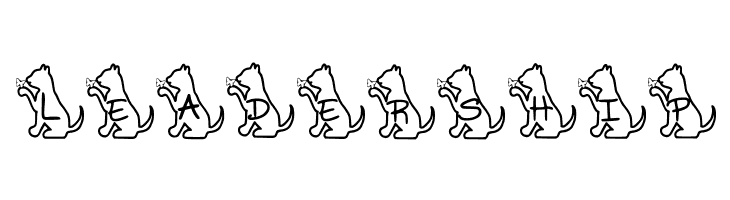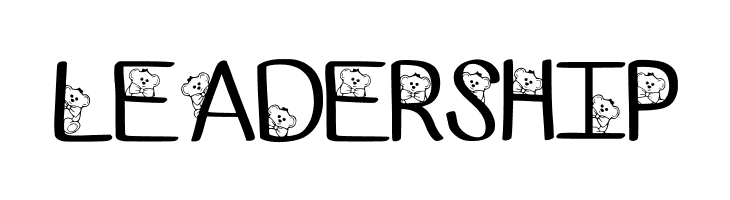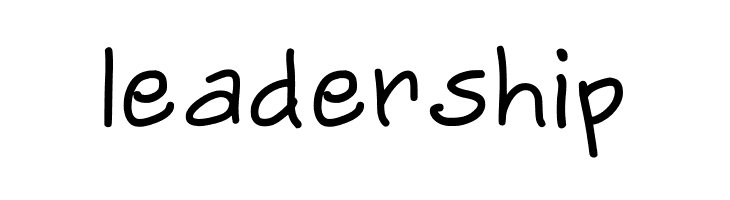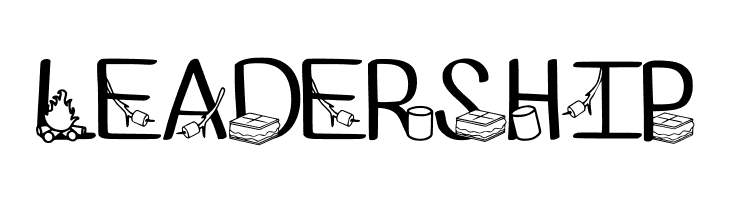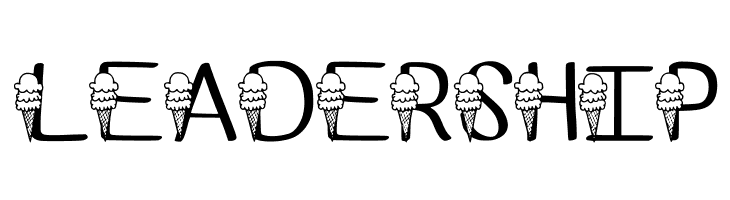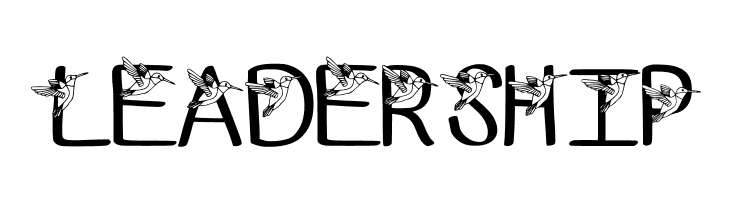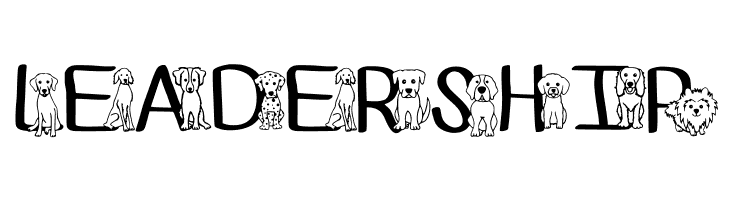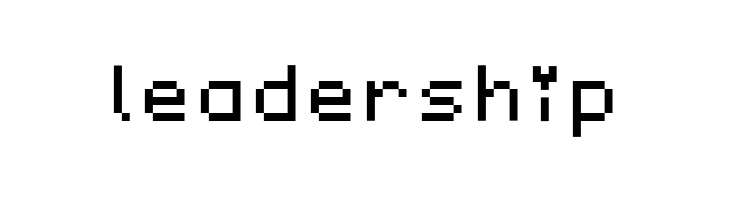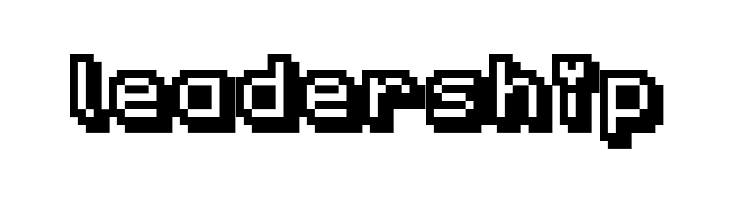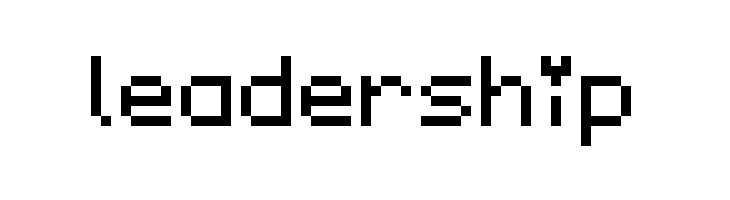
A bold, futuristic font with geometric and dynamic design elements.
A decorative, fictional script with geometric and symbolic characters.
A bold, decorative font with snowflake patterns, perfect for festive designs.
A flowing, cursive script font with elegant, interconnected characters.
A whimsical font with characters inside cat outlines, perfect for playful designs.
A playful font with teddy bear illustrations, perfect for children's themes.
A playful, casual handwritten font with smooth, flowing lines and a relaxed style.
A playful, camping-themed decorative font with bold, whimsical characters.
A playful font with ice cream cone motifs integrated into each character.
A decorative font with integrated hummingbird illustrations, offering a playful and elegant style.
A playful font with each character accompanied by a cute puppy illustration.
A pixelated, retro-style font with a blocky, 8-bit video game aesthetic.
A pixelated, retro-style font with a blocky, 8-bit aesthetic.
A playful, pixelated outline font with a retro video game aesthetic.
A pixelated, retro outline font with a bold, playful style.
A pixelated, outlined font with a retro, digital aesthetic.
A pixelated, outlined font with a retro video game style.
A bold, pixelated outline font with a retro digital aesthetic.
A playful, handwritten font with irregular, brush-like strokes.
A bold, expressive brush-style font with dynamic, irregular strokes.
A bold, textured font with a hand-drawn, geometric style.
A modern and artistic font with dynamic curves and sharp angles.